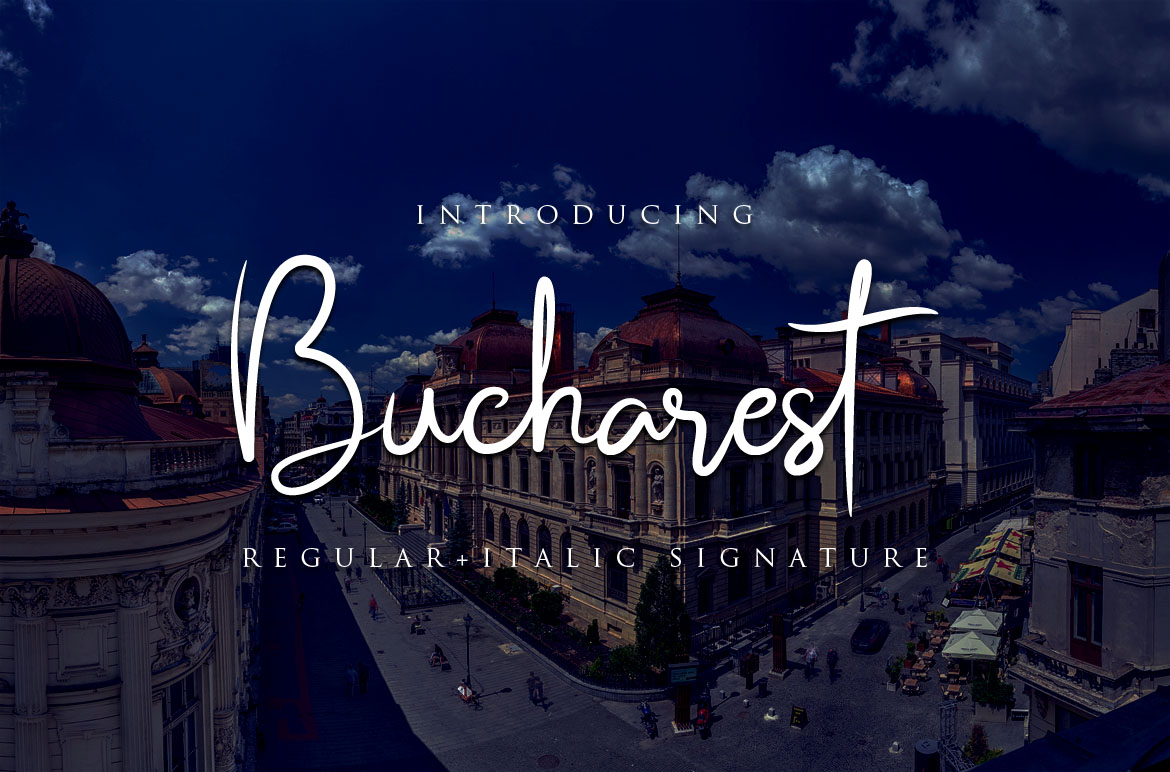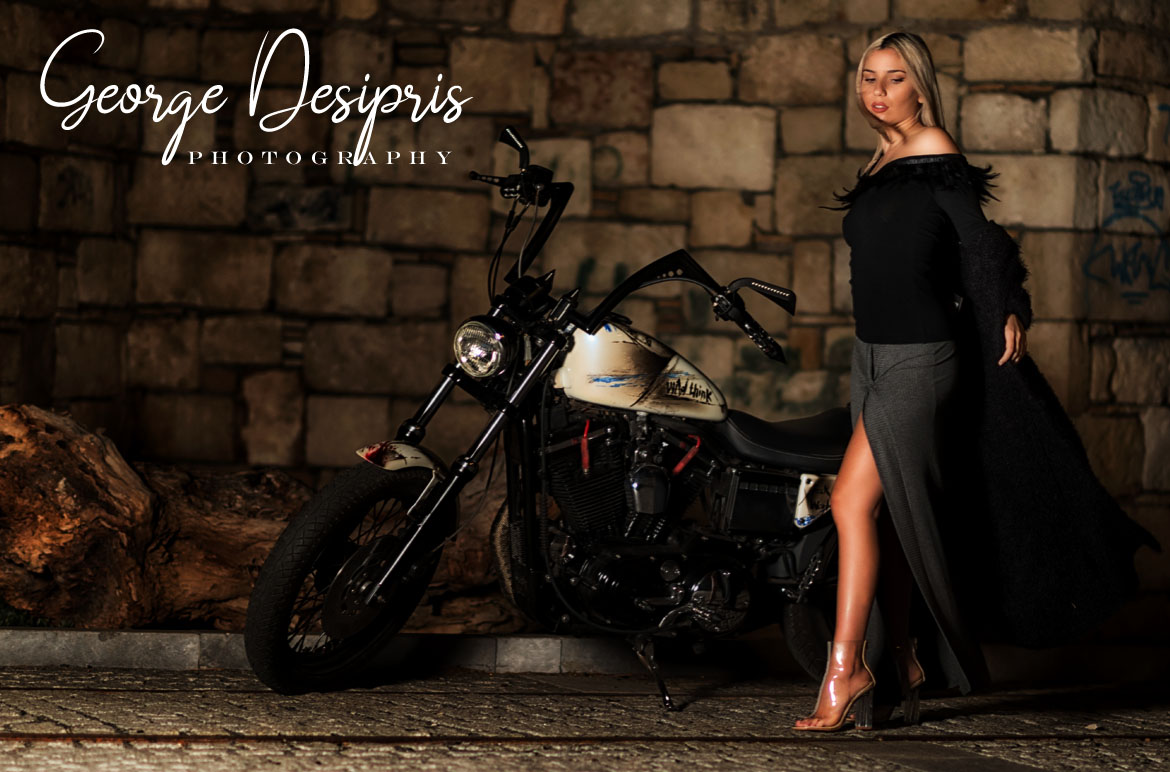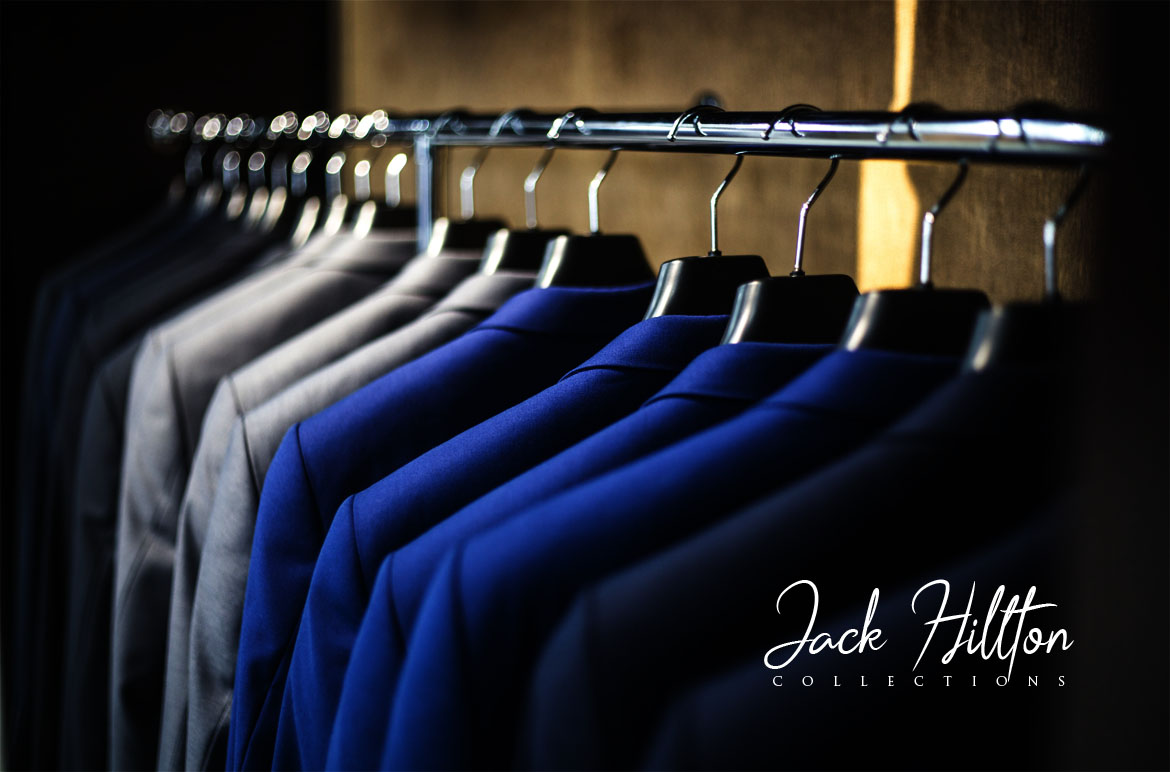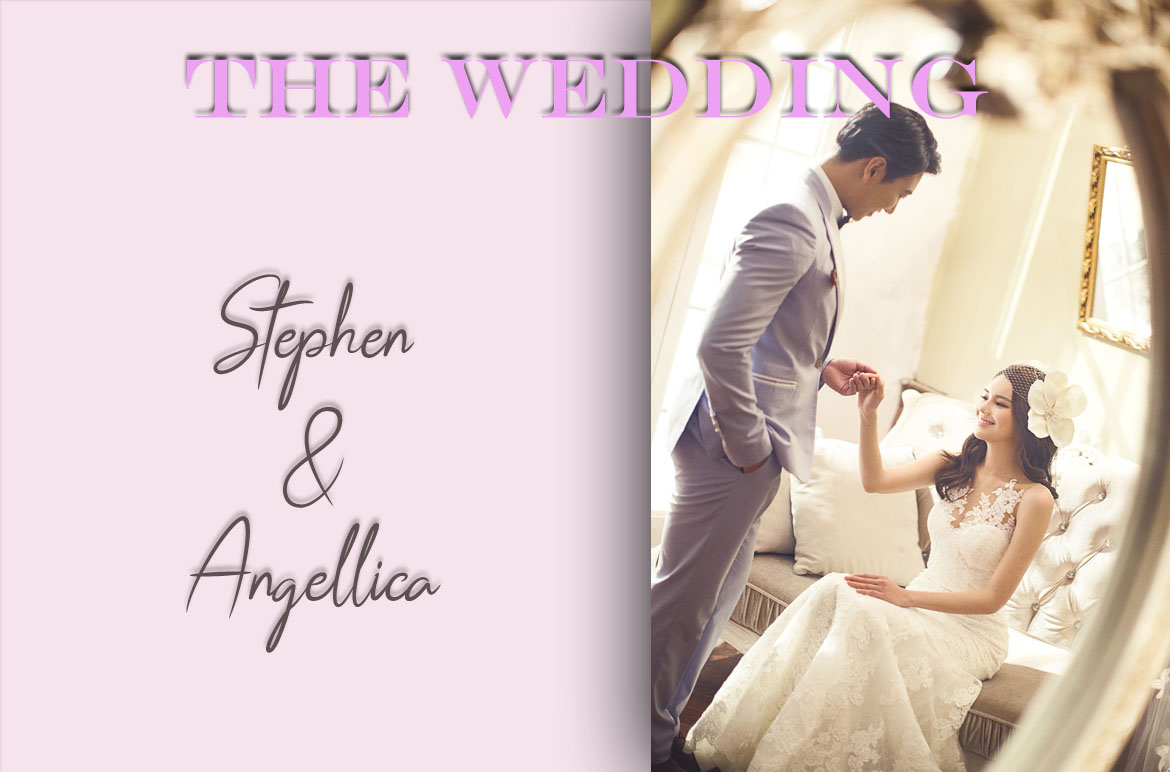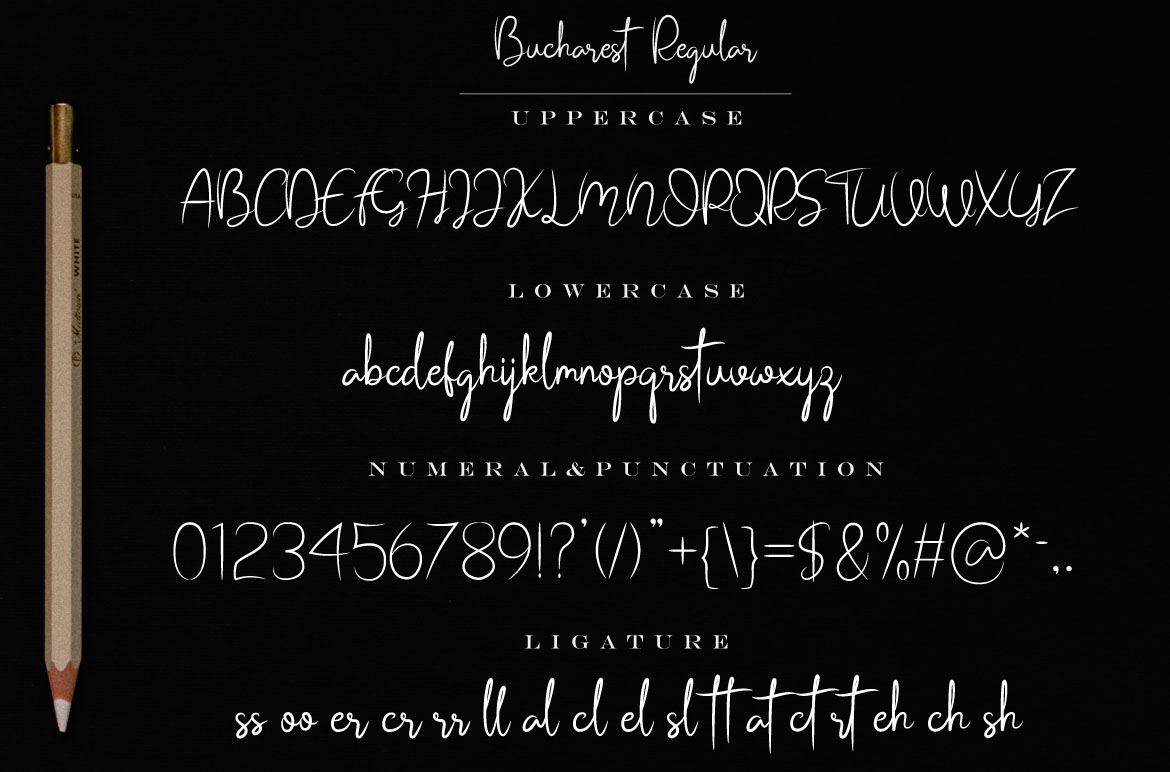
Bucharest Font
About Bucharest Font
Bucharest is a modern and elegant signature font. This font is wholly modern and sleek, and provides an organic and authentic appeal to projects of all types.